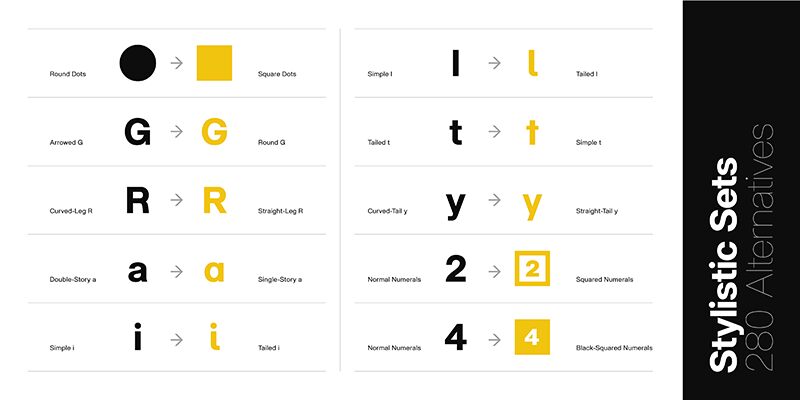
Sublima ExtraLight Italic, a member of the Sublima font family, is a sleek and contemporary sans serif typeface designed by Punchform. Its extra-light weight adds an air of elegance and subtlety to any design project. With its clean lines and minimalistic aesthetic, this font style is perfect for creating sophisticated logos, branding materials, and editorial designs.
Whether you're working on a fashion magazine spread or designing a high-end website for a luxury brand, Sublima ExtraLight Italic will bring sophistication and refinement to your project. Its italicized form adds a touch of emphasis and dynamism to your typography, making it ideal for conveying elegance in headlines or highlighting important information in body text.
What sets Sublima apart is its versatility. With 280 alternative glyphs and 11 stylistic sets at your disposal, you can easily customize the look of your designs. Experiment with ligatures, swashes, and alternate characters to create unique typographical layouts that stand out from the crowd.
Features:
828 glyphs in 20 fonts
280 alternative glyphs
11 stylistic sets
15 OpenType features
Each weight includes extended language support and 15 powerful OpenType features such as stylistic alternates, contextual alternates, standard ligatures, glyph composition/decomposition, localized forms, case-sensitive forms, ordinals, proportional figures, tabular figures, slashed zero, numerators, denominators, fractions, superscript, and subscript.